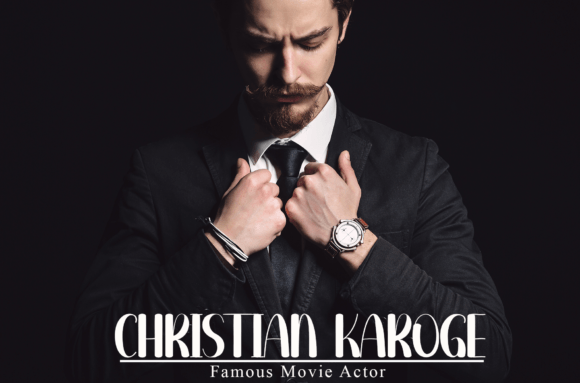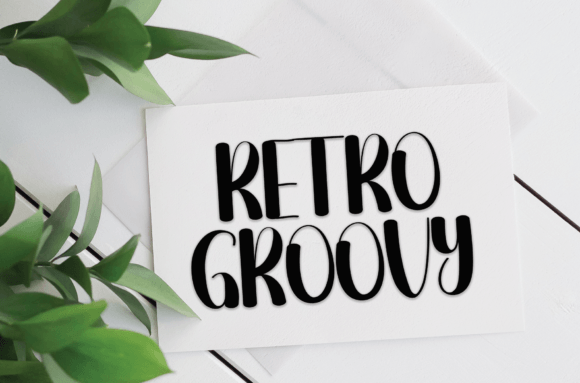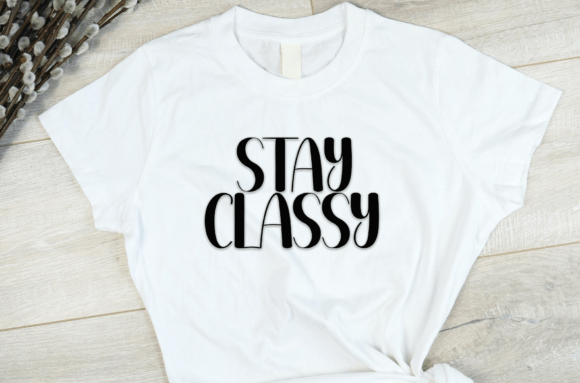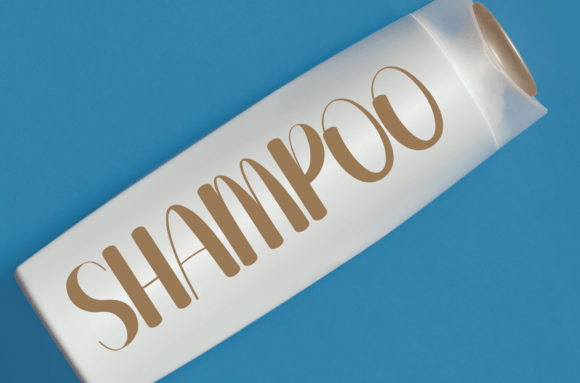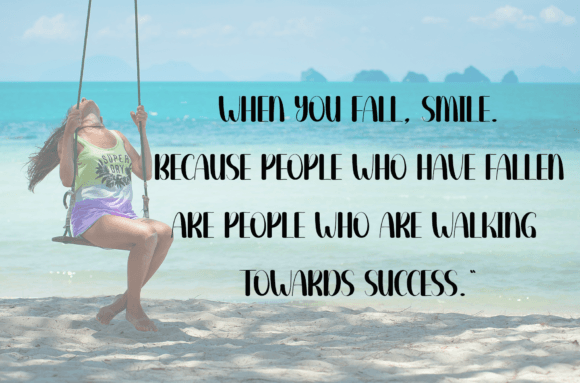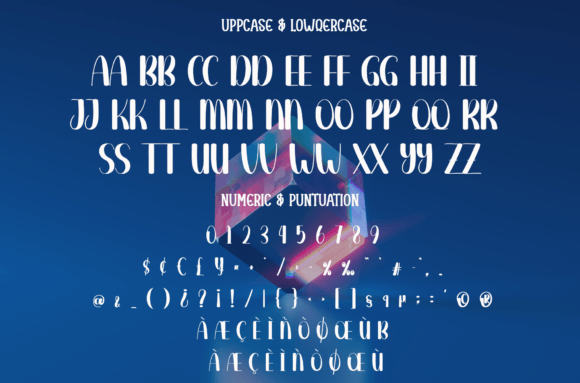
Adding a Personal Touch with Fonts
Have you ever been stuck in a design rut, trying to come up with the perfect way to express your creativity? Maybe you’re designing a wedding invitation and want it to feel truly special, or perhaps you’re crafting a birthday card for a loved one. Whatever the project, one thing is certain: the right font can make all the difference.
That’s where the Blue Mode Font comes in – a sweet and friendly handwritten font that’s perfect for adding a fun touch to your designs. Whether you’re working on a wedding invitation, a birthday card, or any other project that needs a personal touch, this font is ideal. Its fresh and neat design makes it a valuable asset for designers looking to add a little extra flair to their work.
Key Features of Blue Mode Font
- Font Family: Blue Mode Font is a sans-serif font family designed for digital displays, available in various weights and styles.
- Font Sizes: Blue Mode Font supports font sizes ranging from 8 to 72 points, making it suitable for a wide range of applications, from small mobile screens to large digital signage.
- Resolution: Blue Mode Font is designed to be highly legible at resolutions as low as 72 dpi, ensuring clear readability even on low-resolution displays.
- Unique Characteristics: Blue Mode Font features a unique, modern design with subtle rounded edges and a highly readable x-height, making it an ideal choice for digital signage, wayfinding, and other applications where clear communication is crucial.
Blue Mode Font Review
Overall, I’m a fan of the Blue Mode Font, and I think it has a lot of potential. Here are some of the things that work well:
- ✨ Unique aesthetic: The font has a distinctive, eye-catching design that’s sure to grab attention.
- ✨ High legibility: Despite its quirky appearance, the font is surprisingly easy to read, even at smaller sizes.
- ✨ Versatility: The font comes in a range of weights and styles, making it suitable for a wide variety of applications.
- ⚠️ Limited language support: The font may not include the full range of characters needed for non-Latin scripts, which could be a problem for certain users.
- ⚠️ Not suitable for small text: While the font is legible at larger sizes, it can become difficult to read at smaller sizes, which may limit its use in certain contexts.
Overall, I think the Blue Mode Font is a great choice for designers who want to add a touch of personality to their projects. While it’s not perfect, its unique aesthetic and high legibility make it a solid choice for a wide range of applications.
Tips for Getting the Most Out of Blue Mode Font
To get the most out of the Blue Mode Font, use it in conjunction with other design elements that complement its unique aesthetic. Experiment with different font sizes, colors, and alignments to create visually appealing designs. Additionally, use the Blue Mode Font to draw attention to important information or to create a cohesive brand identity.
The Blue Mode Font is commonly used in designs that require a modern and sleek aesthetic. It’s particularly effective in digital products, such as mobile apps, websites, and social media graphics. The font is also suitable for use in print materials, such as business cards, brochures, and posters.